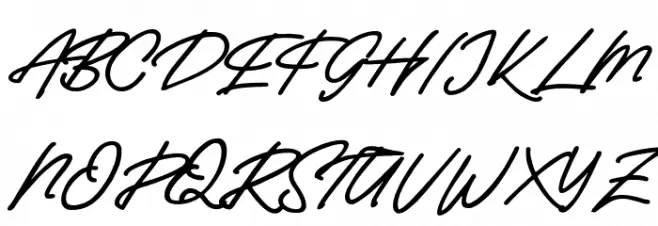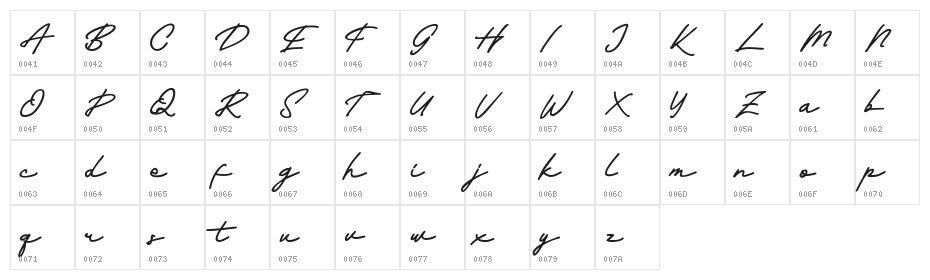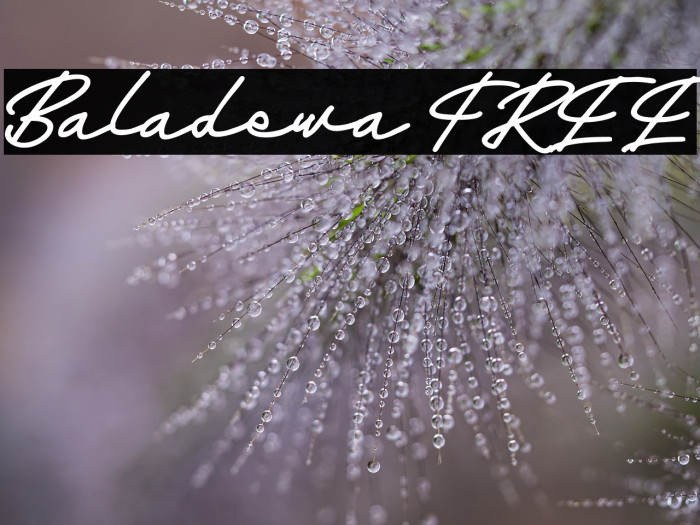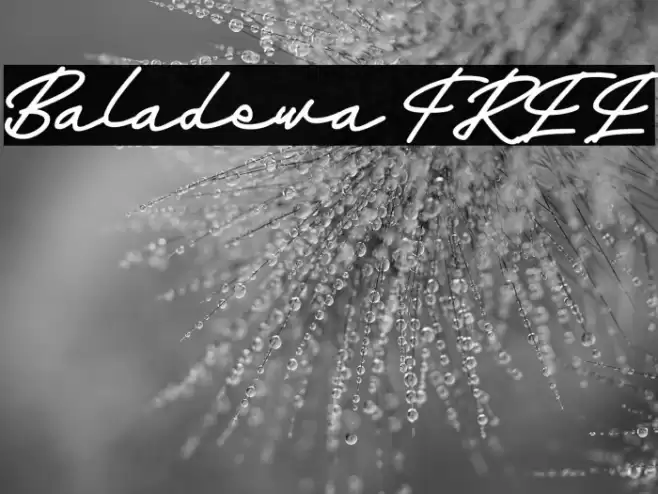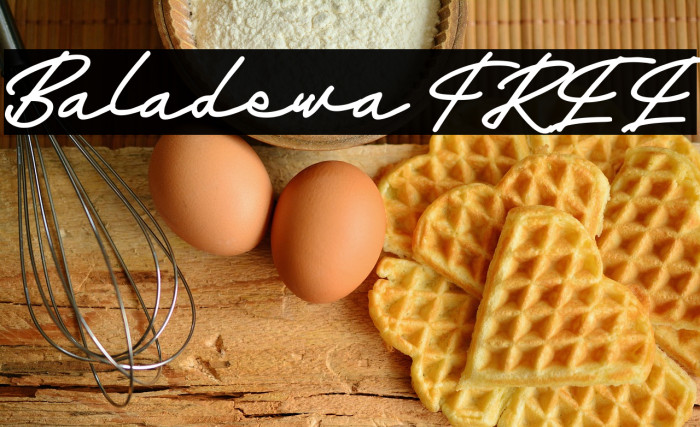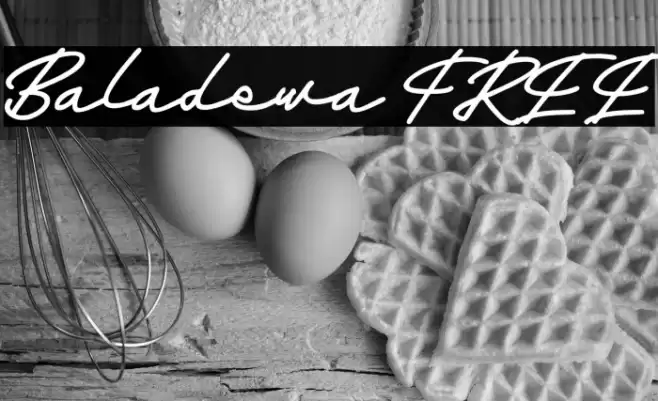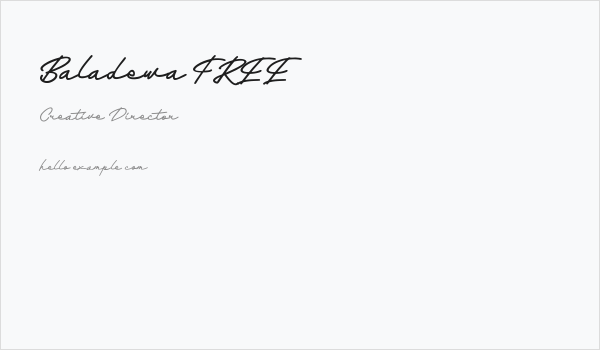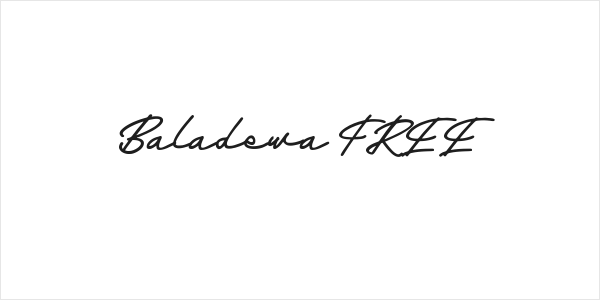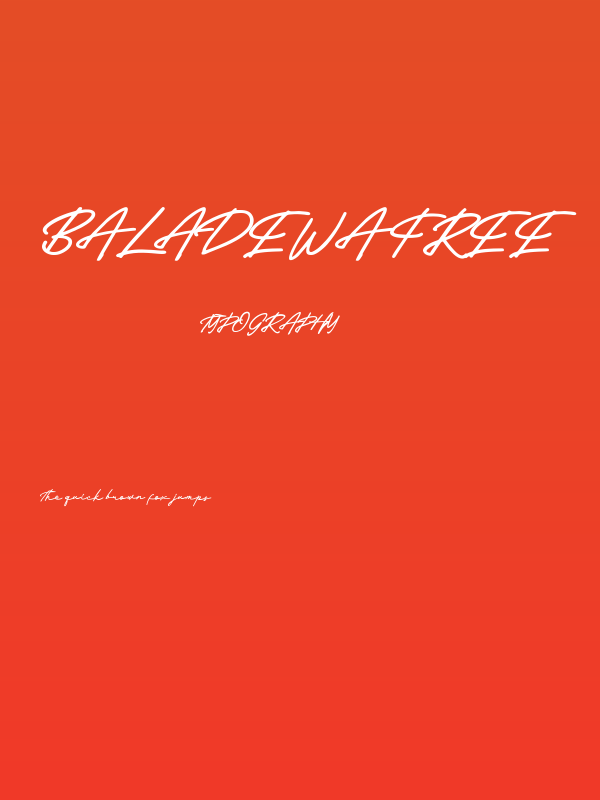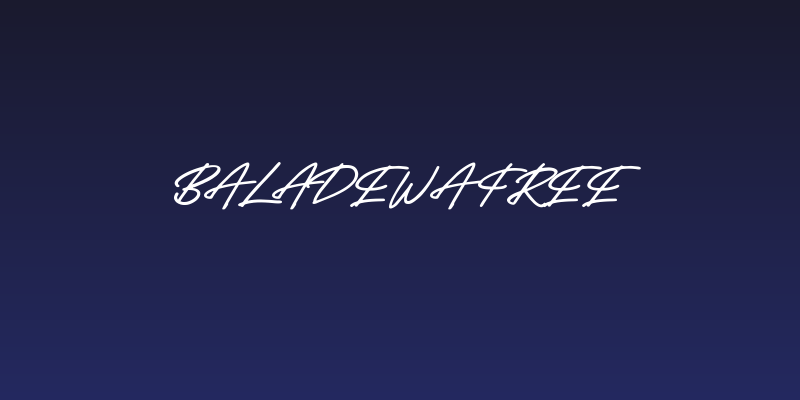
Baladewa FREE Font
Baladewa FREE Description
This font features a fluid, cursive style that mimics natural handwriting. The letters are connected, creating a seamless flow across words, which gives it a personal and elegant touch. The strokes are smooth and consistent, with a slight slant to the right, enhancing its handwritten appearance. The uppercase letters are bold and prominent, while the lowercase letters maintain a delicate balance, making it suitable for both formal and informal contexts. The overall design is sophisticated yet approachable, ideal for adding a personal touch to any project.
| Use Case | Logos, Invitations, Personal Correspondence |
| Proposed Projects | Ideal for wedding invitations, personal letters, branding, and greeting cards. |